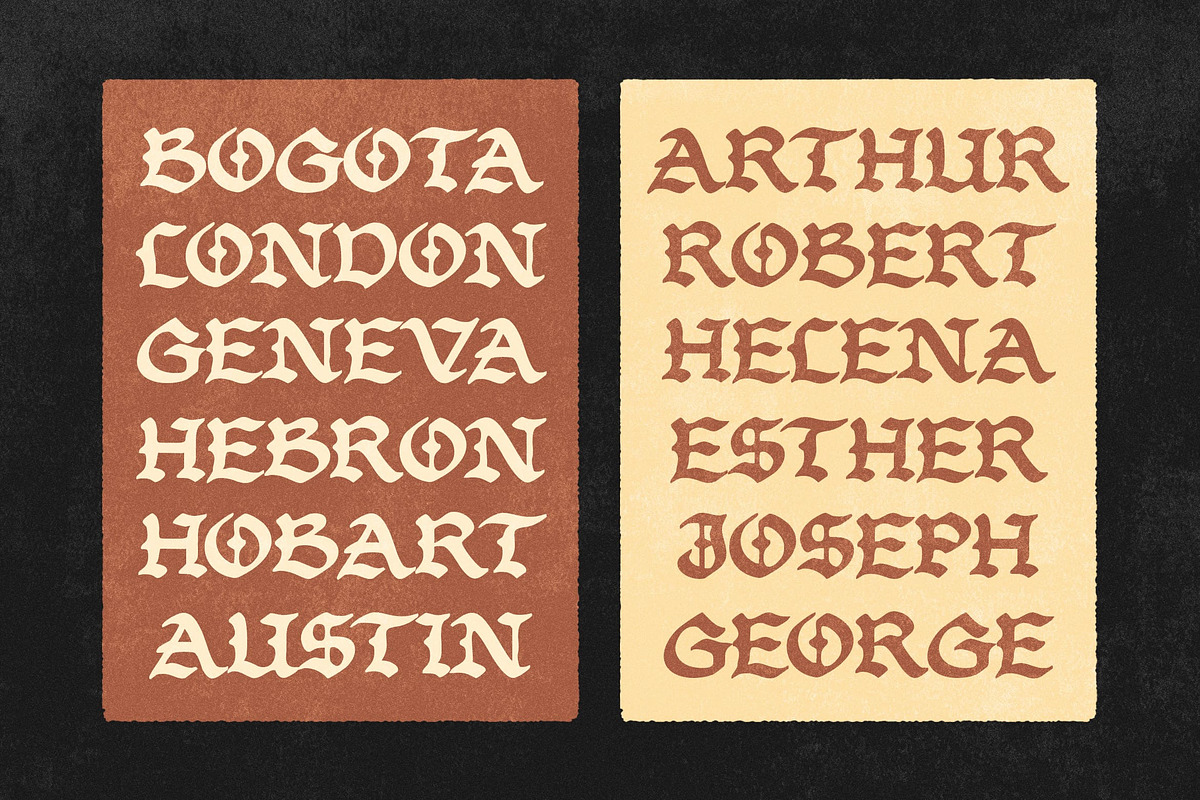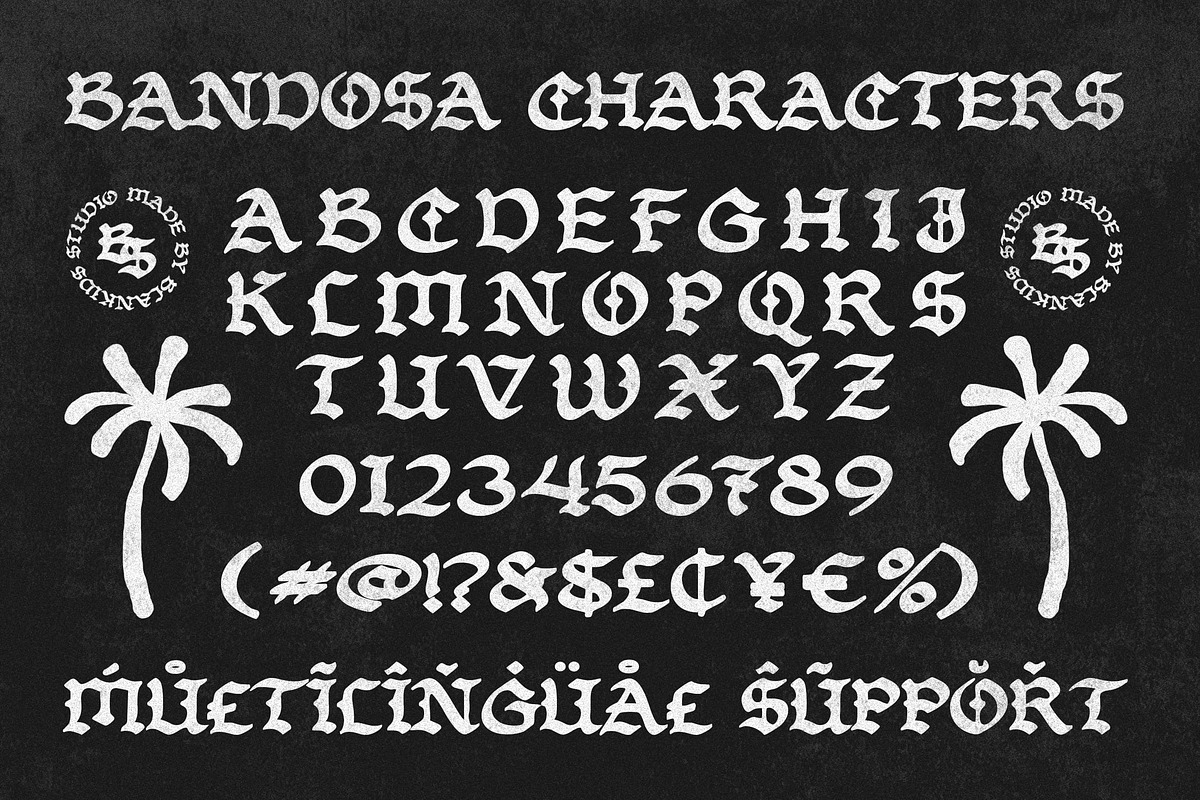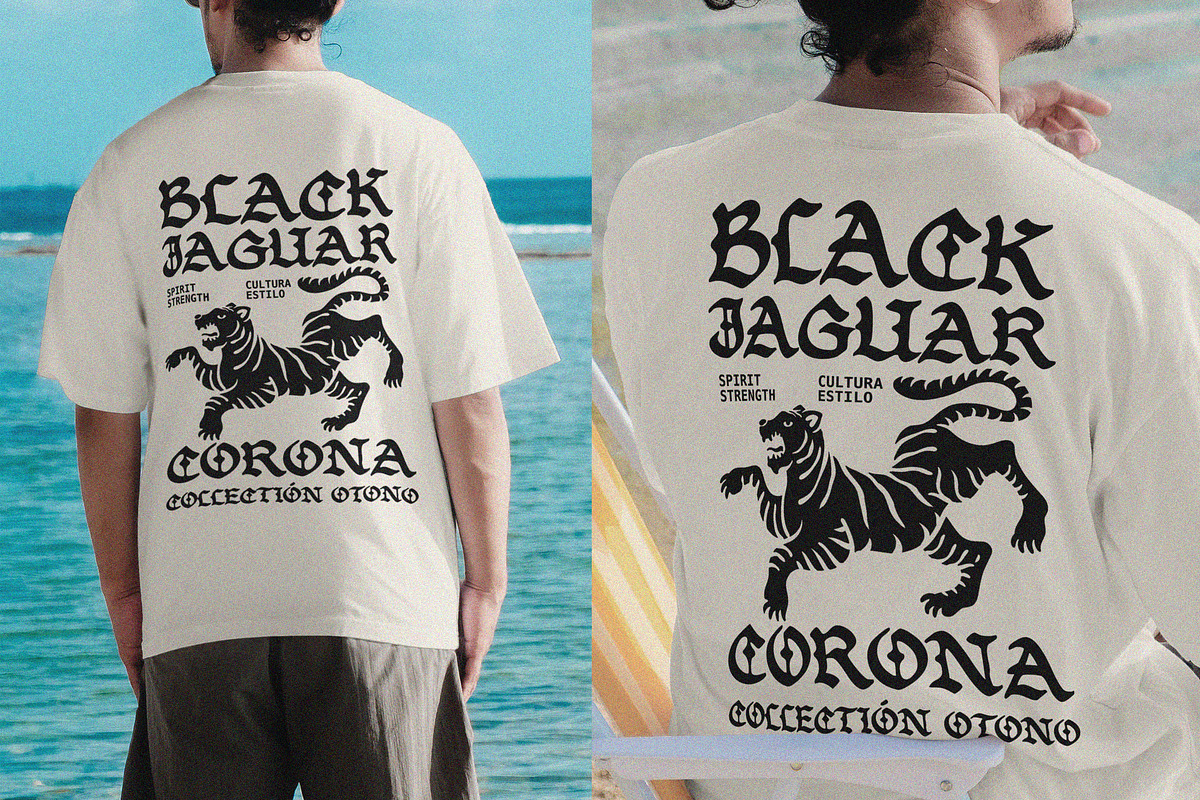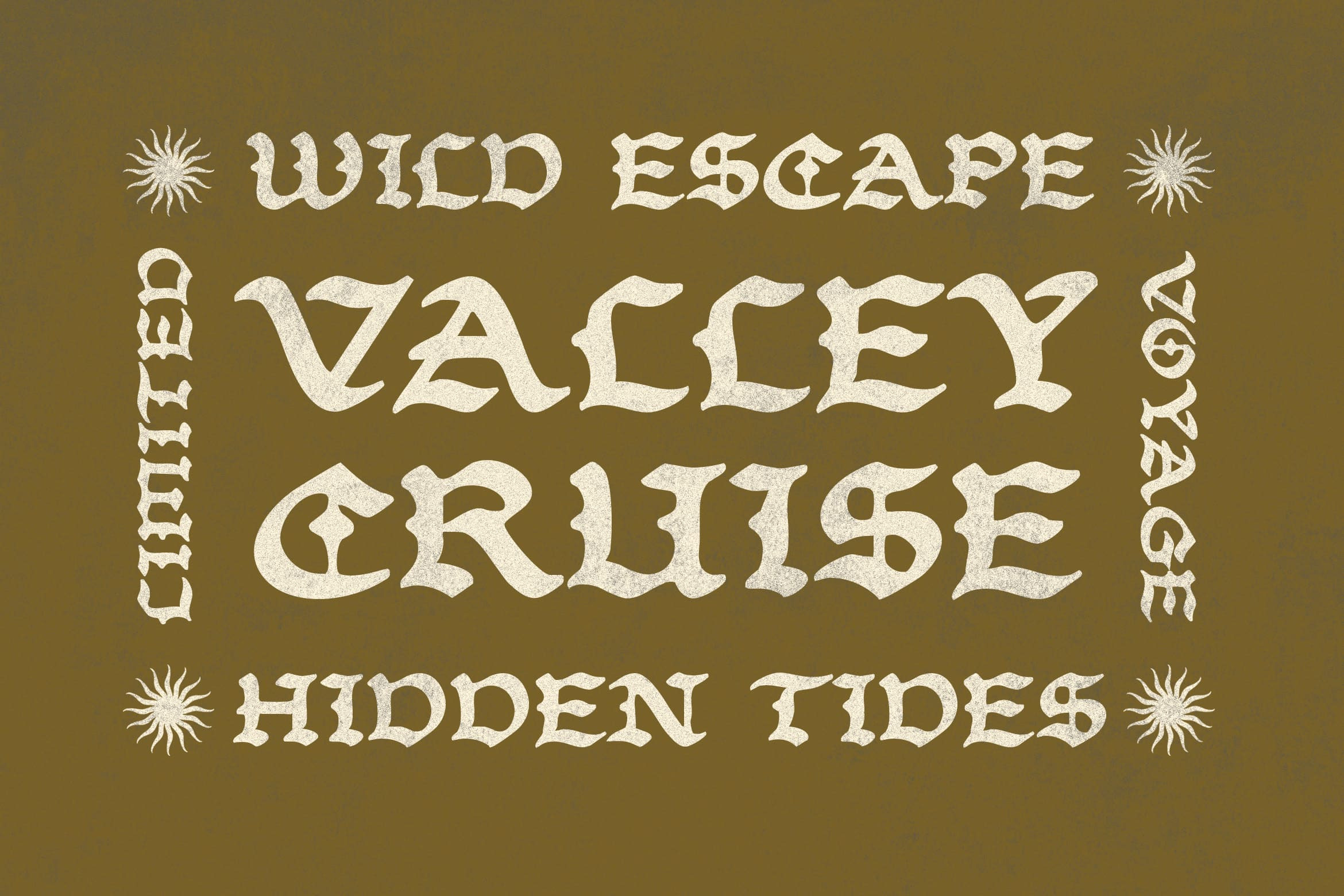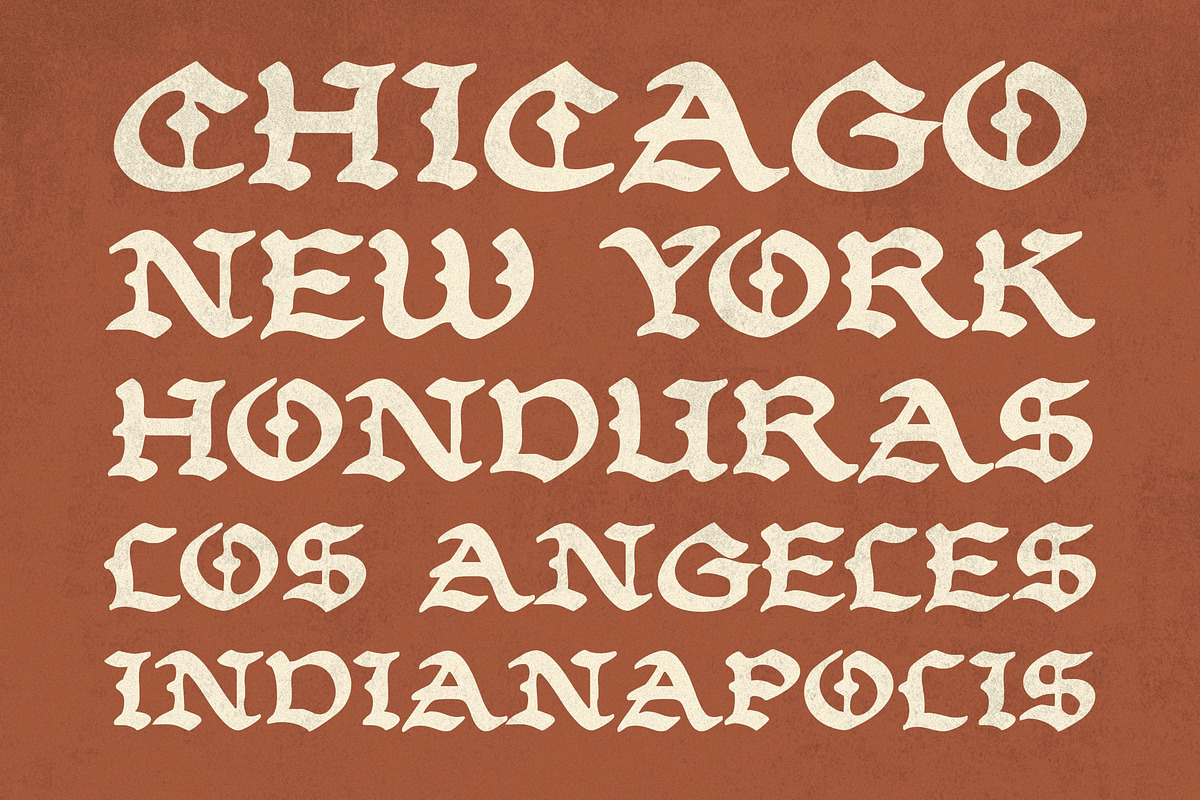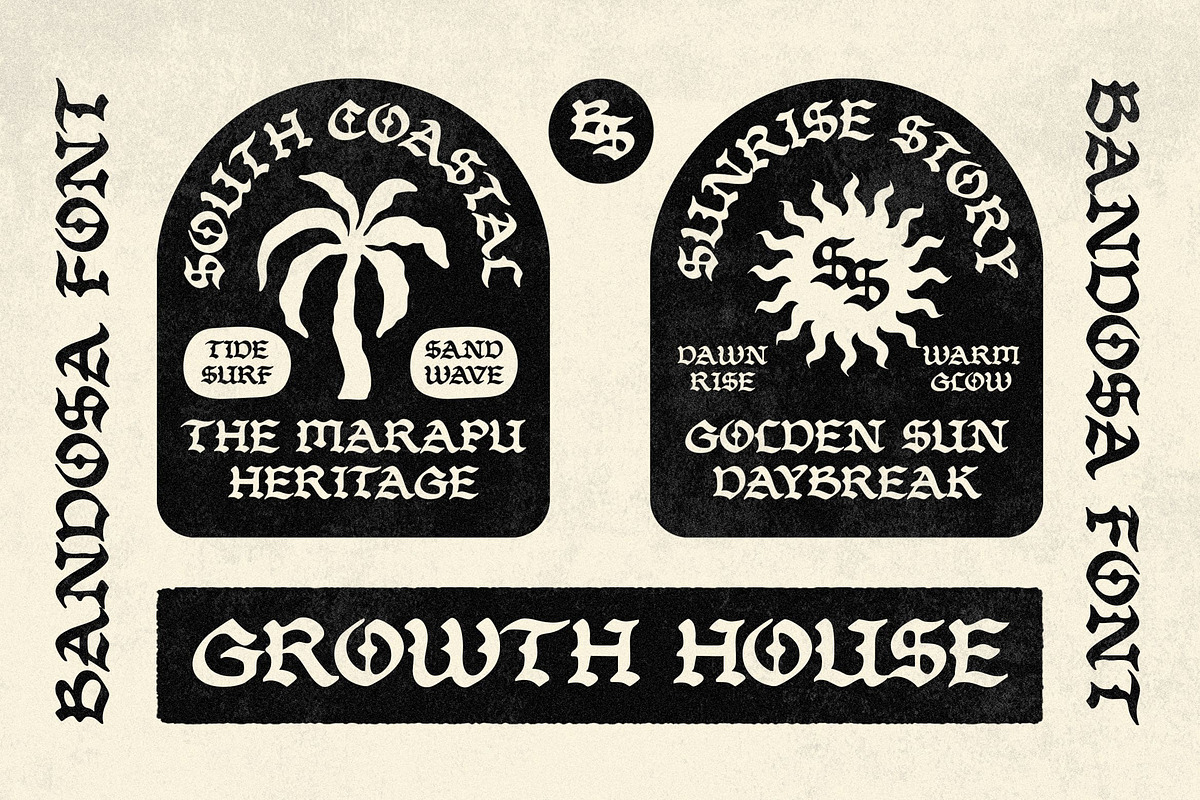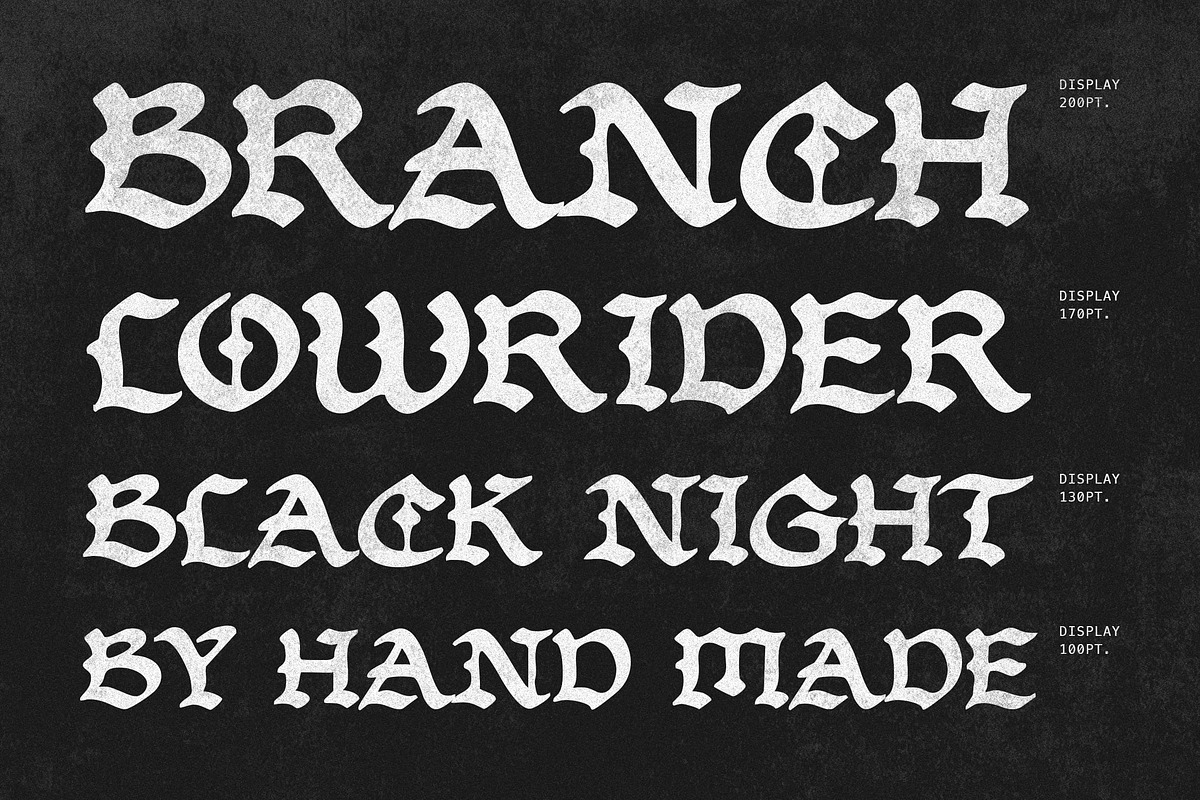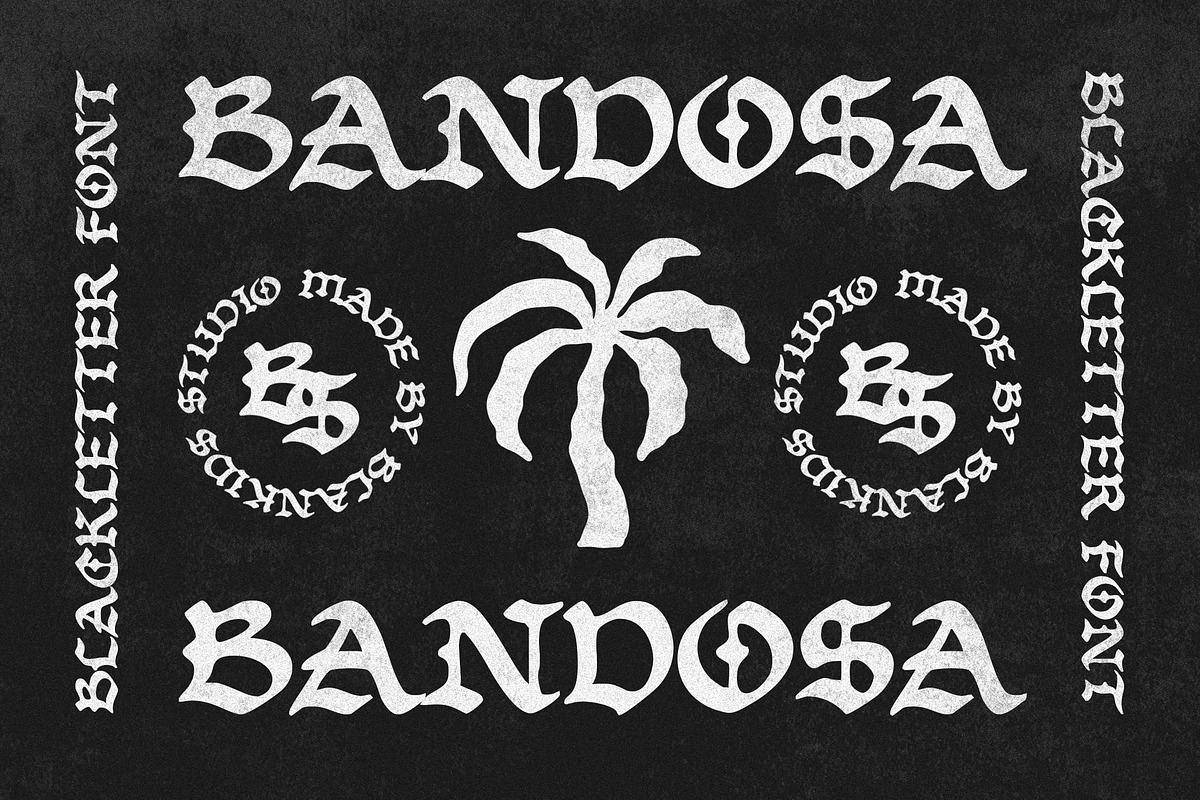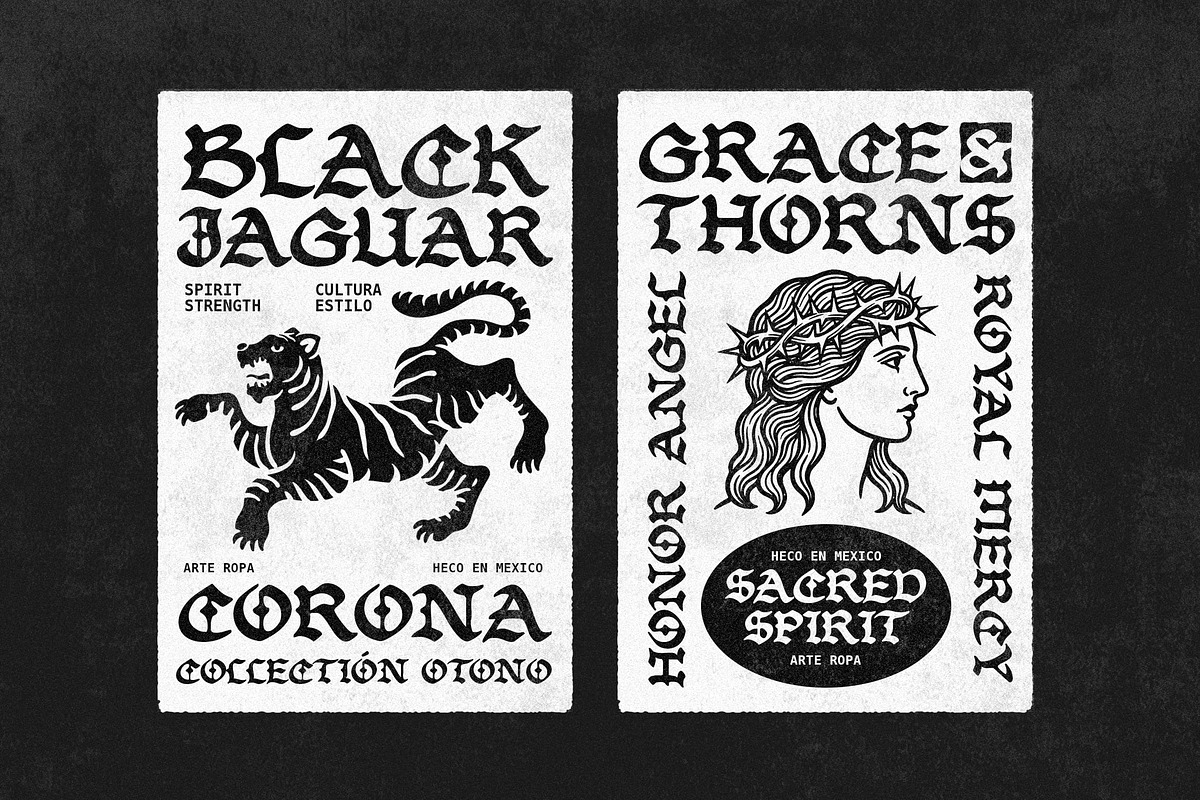
Bandosa - Handmade Blackletter Font
Bandosa is a modern blackletter font with a fresh, tropical twist. Inspired by heritage craftsmanship and coastal subculture, it combines bold vintage letters with a relaxed, handcrafted vibe.
Unique Style: Soft, organic blackletter edges with a subtle hand-made texture.
Multilingual Support: Includes accented characters for global languages.
Best For:
Apparel & Merch: Streetwear, surfwear, hoodies, and caps.
Branding & Packaging: Craft beer, coffee, chocolates, and barber shop logos.
Posters & Music: Album covers, event flyers, and display headlines.
Tattoo Flash: Traditional tattoo designs and subculture artwork.